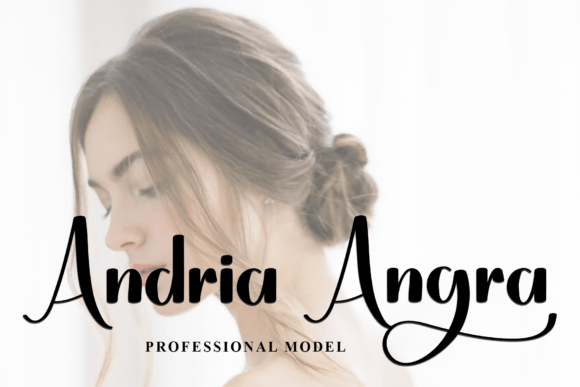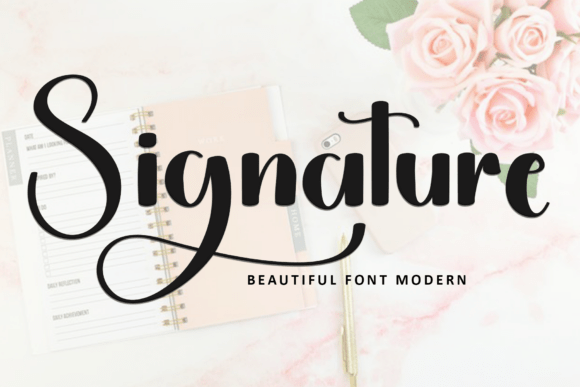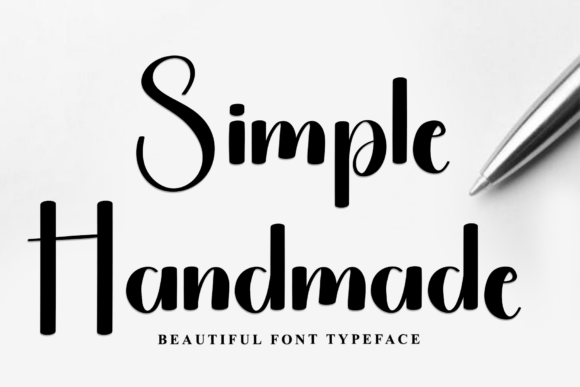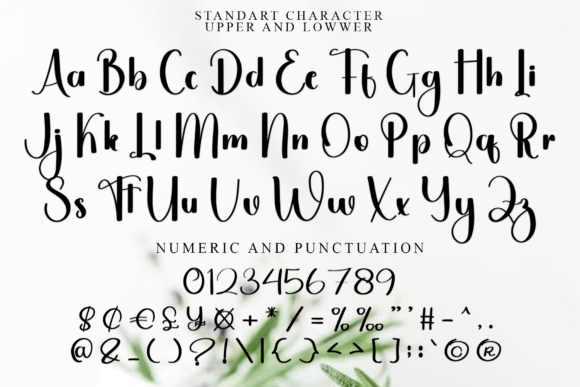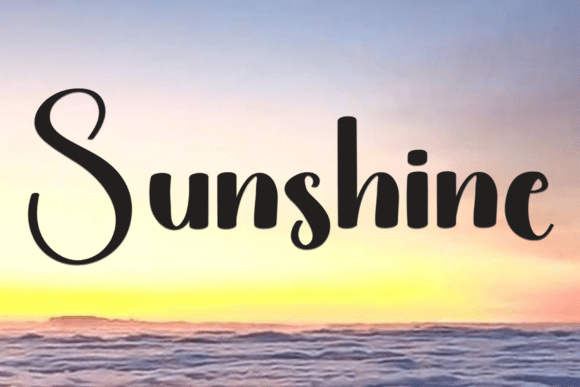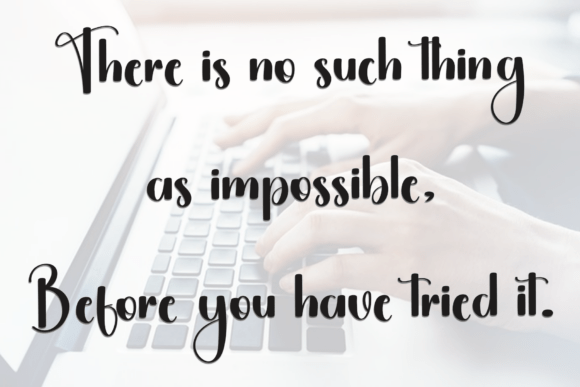
Unlock the Charm of Your Designs with the Perfect Font
Have you ever found yourself sitting in front of a blank canvas, staring at a blank page, and wondering what’s missing? That’s when the magic happens – you stumble upon the perfect font that brings your creative vision to life. For designers and crafters, the search for the perfect font is a never-ending journey, but we’re excited to introduce you to a hidden gem that will change the game: the Daisy Magnolia Font.
This beautiful and eye-catching font is designed to add a soft, unique touch to your designs, making them stand out from the crowd. With its distinctive strokes and versatile nature, it’s perfect for a wide range of creative projects, from design and crafts to digital art and more. The Daisy Magnolia Font is compatible with various applications, including Windows and open-source platforms, making it a valuable addition to any designer’s toolkit.
Daisy Magnolia Font Key Features
- Font Family: Daisy Magnolia
- Font Styles: Regular, Italic
- Size: 2,500 characters, including uppercase, lowercase, numerals, and punctuation
- Resolution: Designed for screen and print use, with optimal legibility at 12-24 points
- Unique Characteristics: Hand-drawn, elegant script with a vintage feel and subtle flair, suitable for creative, feminine, and romantic designs
Daisy Magnolia Font Review
I recently had the chance to work with the Daisy Magnolia font, and I must say it’s a unique and charming addition to any design project. Here are my thoughts on what works well and what could be improved.
- Elegant and sophisticated feel: Daisy Magnolia exudes a sense of classic elegance, making it perfect for high-end branding, luxury goods, or vintage-inspired designs.
- Versatility: This font is suitable for a wide range of applications, from body text to headlines and even logos.
- Beautiful script and swash options: The script and swash variations add a touch of personality and flair to any design, making it stand out from more straightforward sans-serif fonts.
- Limited language support: As a decorative font, Daisy Magnolia may not be optimized for languages that require a wide range of characters or complex typography.
- Potential legibility issues: The intricate details and flourishes of this font can make it challenging to read, especially at smaller sizes or in low-contrast environments.
Overall, I think Daisy Magnolia is a great addition to any designer’s toolkit, offering a unique and sophisticated look that’s perfect for the right project. Just be mindful of its limitations and use it thoughtfully to avoid potential issues.
Tips for Getting the Most Out of Daisy Magnolia
Use the Daisy Magnolia font to add a touch of elegance and sophistication to your designs.
Pair it with other elegant fonts for a unique and eye-catching look.
The Daisy Magnolia font is ideal for:
Branding and logos
Formal business documents
Magazine and newspaper headlines
Alternatives to Daisy Magnolia Font
The Lobster Font is a handwritten font that features a casual, cursive style. It is ideal for use in creative projects, such as greeting cards, invitations, and social media posts. This font is more playful and casual compared to the Daisy Magnolia Font, which has a softer, more elegant feel.
The Great Vibes Font is a script font that features a modern, elegant style. It is ideal for use in projects that require a touch of sophistication, such as wedding invitations, luxury branding, and high-end packaging. This font is more refined and elegant compared to the Daisy Magnolia Font, which has a softer, more whimsical feel.
The Pacifico Font is a modern script font that features a clean, elegant style. It is ideal for use in projects that require a touch of sophistication, such as branding, packaging, and advertising. This font is more refined and elegant compared to the Daisy Magnolia Font, which has a softer, more playful feel.
The Carolyna Pro Font is a modern script font that features a elegant, refined style. It is ideal for use in projects that require a touch of sophistication, such as branding, packaging, and advertising. This font is more refined and elegant compared to the Daisy Magnolia Font, which has a softer, more whimsical feel.